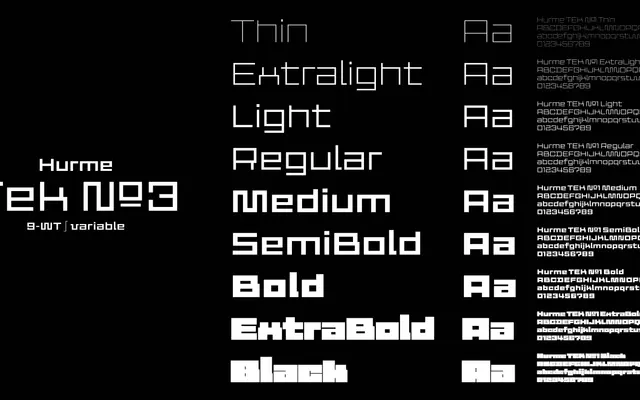
Hurme Tek №3
A wide, strictly rectilinear sans built on the logic of pixel fonts, with no curves or diagonals anywhere in its construction.
Hurme Tek №3 takes the structural grammar of a pixel font and applies optical adjustments to make it functional at typographic scales. Every letterform is built from straight lines and right angles, giving the family a rigidly mechanical character suited to technical, digital and display contexts. Nine static weights run from Thin to Black, with a single-axis variable font also available.
A strictly rectilinear, monolinear sans with no curves or diagonals, drawing on pixel-font and mechanical/digital traditions; its geometric rigidity and technical character place it firmly in the geometric sans category.